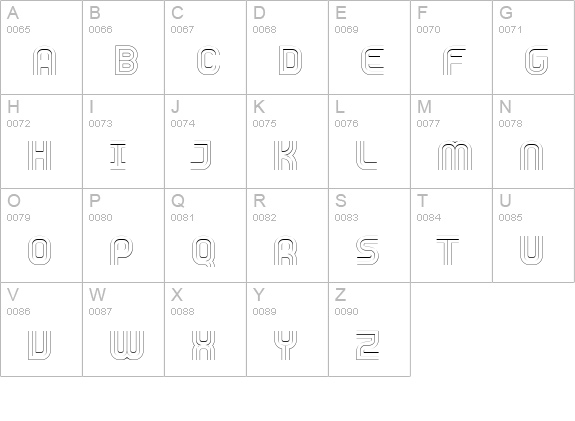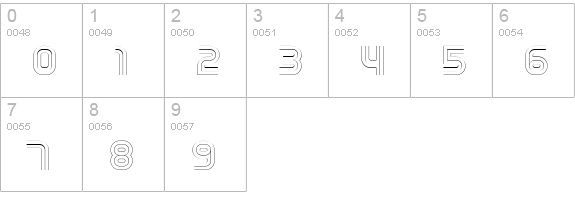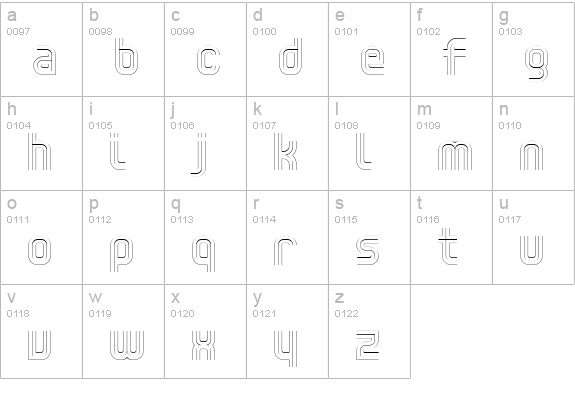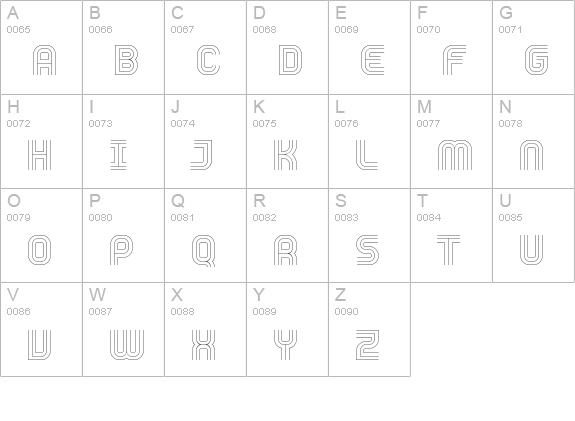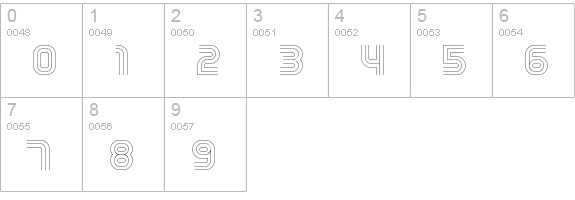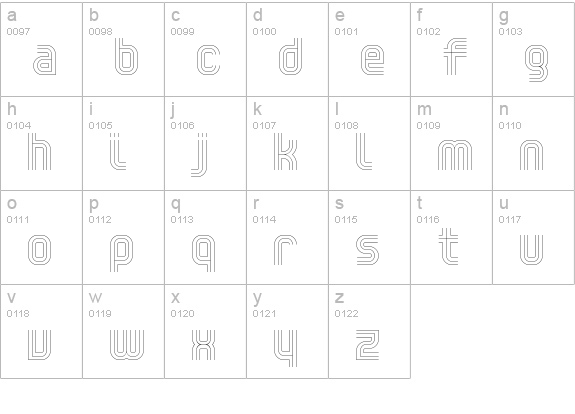
Trisect Thin is a delicate, low-contrast variant in the Trisect typeface family \xE2\x80\x94 well suited to fashion editorial, minimal branding, and high-contrast display.
Introducing Trisect Thin, a sleek and sophisticated font that effortlessly combines modern minimalism with timeless elegance. This stunning typeface is perfect for those seeking a clean and contemporary look, while still maintaining a touch of sophistication. Trisect Thin features slender and refined letterforms, carefully crafted to bring a sense of grace and style to any design project. Its delicate strokes and precise curves create a harmonious balance, making it ideal for anything from branding and logos to editorial layouts and web design. With its versatility and understated beauty, Trisect Thin is a true gem in the world of typography. Whether you are working on a corporate presentation, a fashion magazine, or a personal blog, this font will elevate your work to new heights. And the best part? Trisect Thin is freely available to download at FontsMarket.com. This means that you can enjoy the elegance and sophistication of this remarkable font without having to worry about any cost. It's a rare opportunity to have such a high-quality typeface at your fingertips, ready to enhance your creative vision. So why wait? Discover the beauty and versatility of Trisect Thin today and elevate your design projects to a whole new level. Download it for free at FontsMarket.com and let your creativity soar.